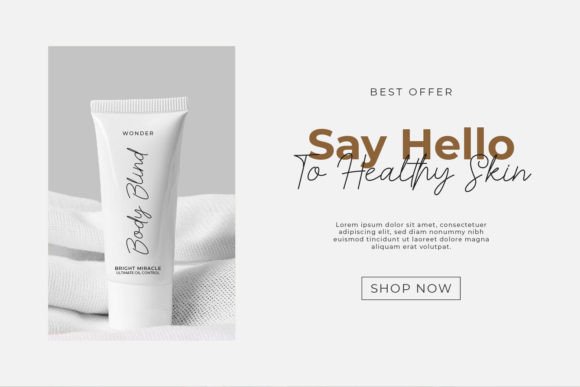
Introducing Cathely Script Handwritten: Elevate Your Designs with Elegance and Charm
In the world of digital design, fonts play a crucial role in conveying the tone and personality of a brand or project. Among the myriad of fonts available, Cathely Script Handwritten stands out as a captivating and elegant choice, bringing the charm of handwritten calligraphy to your digital creations. With its flowing strokes, graceful curves, and authentic handwritten style, Cathely Script Handwritten adds a touch of personalization and sophistication to any project.
What is Cathely Script Handwritten?
Cathely Script Handwritten is a beautifully crafted font that mimics the elegance and fluidity of handwritten calligraphy. Its design is characterized by:
- Flowing Strokes: The font features smooth, flowing strokes that give it a natural and effortless look.
- Graceful Curves: The curves in Cathely Script Handwritten are meticulously designed to provide a sense of movement and fluidity.
- Authentic Handwritten Style: The font captures the essence of handwritten calligraphy, making it perfect for projects that require a personal touch.
Versatility of Cathely Script Handwritten
One of the standout features of Cathely Script Handwritten is its versatility. This font can be used for a variety of purposes, including:
- Wedding Invitations and Stationery: Add a touch of elegance and romance to your wedding invitations, stationery, and other wedding-related materials.
- Logos and Branding: Use Cathely Script Handwritten to create unique and memorable logos and branding materials that reflect your brand’s personality.
- Marketing Materials: Elevate your marketing materials, such as brochures, flyers, and posters, with the font’s sophisticated and eye-catching style.
- Social Media Graphics: Create engaging and visually appealing social media graphics that stand out from the crowd.
- Product Packaging: Add a touch of luxury and sophistication to your product packaging with Cathely Script Handwritten.
PUA Encoding for Easy Access
Cathely Script Handwritten is PUA (Private Use Area) encoded, which means you can access all of the amazing glyphs and ligatures with ease. PUA encoding allows designers to access a wide range of characters and symbols that are not available in standard fonts, making it easier to create unique and creative designs.
Benefits of Using Cathely Script Handwritten
Using Cathely Script Handwritten in your designs offers several benefits, including:
- Unique and Memorable Designs: The font’s elegant and sophisticated style helps create unique and memorable designs that stand out from the crowd.
- Personal Touch: The handwritten style of Cathely Script Handwritten adds a personal touch to your designs, making them more relatable and engaging.
- Versatility: The font’s versatility makes it suitable for a wide range of design projects, from wedding invitations to product packaging.
- Easy to Use: With PUA encoding, accessing the font’s glyphs and ligatures is easy, making it simple to create stunning designs.
Tips for Using Cathely Script Handwritten
To get the most out of Cathely Script Handwritten, consider the following tips:
- Pair with Other Fonts: Pair Cathely Script Handwritten with other fonts to create visually appealing and harmonious designs.
- Experiment with Colors: Experiment with different colors to find the perfect combination that complements your design.
- Use Ligatures: Take advantage of the font’s ligatures to add a touch of elegance and sophistication to your designs.
- Keep it Simple: Don’t overcomplicate your design. Keep it simple and elegant to let the font shine.
Cathely Script Handwritten is a captivating font that brings the charm and elegance of handwritten calligraphy to your digital creations. With its flowing strokes, graceful curves, and authentic handwritten style, this font is perfect for designers looking to add a touch of sophistication and personalization to their projects. Whether you’re designing wedding invitations, logos, marketing materials, or product packaging, Cathely Script Handwritten is a versatile and elegant choice that is sure to impress.